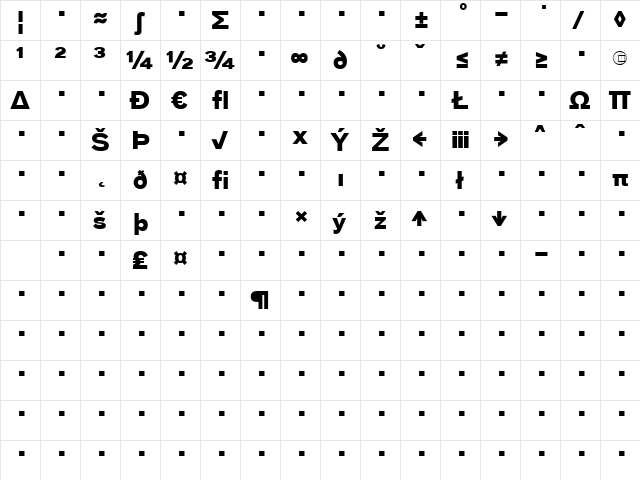
BauTF-BoldExpert Regular
| Foundry | Christian Schwartz, published by FontShop International for the FontFont Library |
| Designer | Christian Schwartz |
Design Context for BauTF-BoldExpert Typeface
BauTF-BoldExpert takes a measured approach to typography — its balanced proportions and neutral character make it a reliable workhorse for both digital and print work. The heavy weight commands attention and anchors typographic hierarchies.